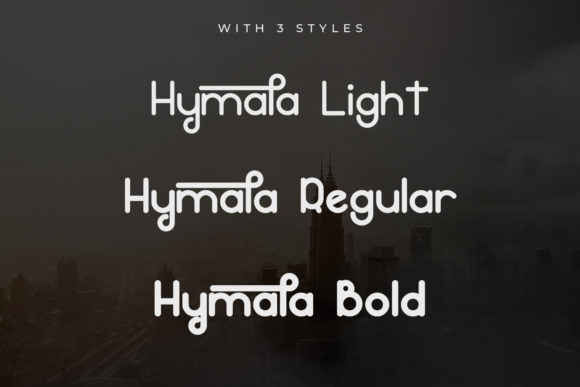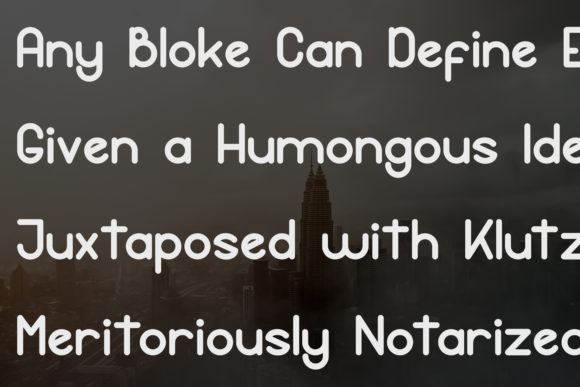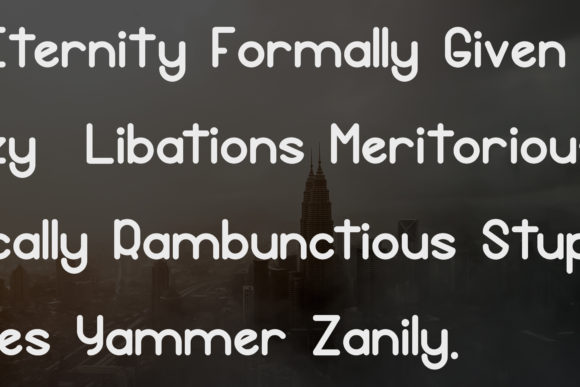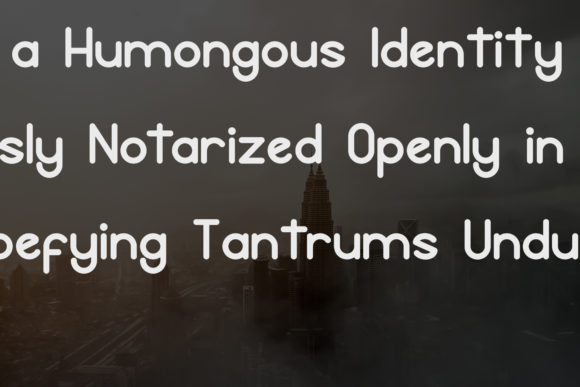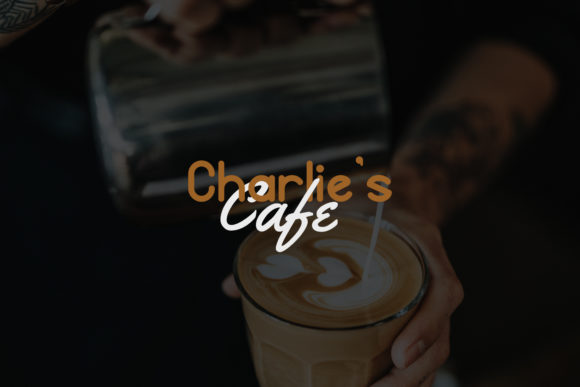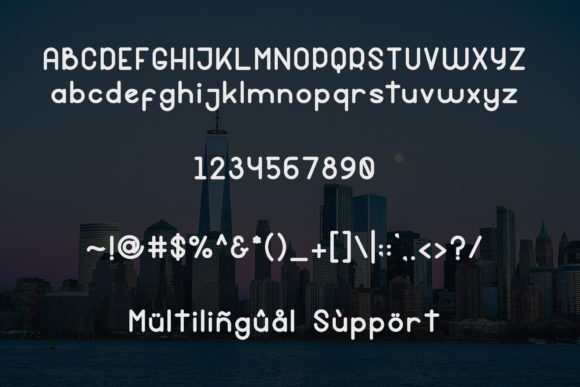
The Perfect Font for Your Creative Expression
You know that moment when you’re brainstorming ideas for your next project, and everything just clicks? The colors, the textures, the fonts – they all come together in perfect harmony. For many designers, that ‘aha’ moment often involves the right font. That’s where the Hymala Font comes in – a stylish and thick lettered sans serif font that’s perfect for bringing your creative vision to life.
Whether you’re crafting a digital design, creating a presentation, or making greeting cards, the Hymala Font is an invaluable tool in your design arsenal. Its unique aesthetic and versatility make it a valuable asset for designers looking to add a personal touch to their work. With the Hymala Font, you can express yourself in a way that’s both bold and beautiful.
Hymala Font Key Features
- Font Family: Hymala is a sans-serif font family designed for digital use. It is available in various weights, from Light to Bold.
- Character Set: Hymala supports a wide range of languages, including Latin, Cyrillic, and Greek scripts, making it suitable for global applications.
- Font Size: Hymala is designed to be highly legible at small font sizes, with optimal readability at sizes ranging from 8 to 24 points.
- Resolution: Hymala is optimized for high-resolution displays, including Retina and 4K screens, ensuring crisp and clear text rendering.
- Unique Characteristics: Hymala features a unique geometric design with a focus on clean lines, open shapes, and a subtle x-height, making it an ideal choice for modern digital applications.
Hymala Font Review
I’ve had the chance to work with the Hymala font and I must say, it’s a unique and interesting choice. There are some things that work well:
- ✨ Elegant and stylish: Hymala’s aesthetic is perfect for creative projects or branding that wants to convey a sense of sophistication.
- ✨ Good for titles and headings: The font’s large x-height and bold lines make it perfect for catching the reader’s attention in titles and headings.
- ✨ Beautiful for script-like text: Hymala’s fluid curves and subtle irregularities make it a great choice for text that needs to feel more like handwriting.
However, there are some limitations:
- ⚠️ May be hard to read in smaller sizes: Due to its bold lines and condensed letterforms, Hymala can be difficult to read when used at smaller font sizes.
- ⚠️ Limited language support: As a decorative font, Hymala’s language support is limited, which can be a problem for projects that require a wide range of languages.
- ⚠️ May not be suitable for body text: Hymala’s unusual letterforms and spacing can make it difficult to read in large blocks of text, so it’s best to reserve it for titles and headings.
Overall, I think Hymala is a beautiful and stylish font that can add a touch of elegance to the right project. However, it’s not a font for every occasion, and it’s essential to consider its limitations before using it in your design.
Tips: Use Hymala Font for headings and titles to add a touch of elegance to your design. Experiment with different font sizes and colors to create a visually appealing contrast.
Tips: Use Hymala Font for creative projects that require a unique and sophisticated look. Experiment with layer blending modes and effects to enhance the font’s appearance.
Tips: Use Hymala Font for presentations and documents that require a professional and polished look. Experiment with different font sizes and colors to create a clear and readable hierarchy of information.
Hymala Font is ideal for:
- Editorial and creative projects
Montserrat is a modern sans-serif font designed for digital use. It’s perfect for titles, headings, and body text in digital products, especially in websites and mobile apps. Montserrat is more geometric and clean compared to Hymala Font, making it ideal for modern designs.
Comparison to Hymala Font: Montserrat has a more geometric and clean design, making it suitable for modern designs, whereas Hymala Font has a more elegant and classic feel.
Q: What is the recommended font size and line spacing for the Hymala Font?
The Hymala Font is designed to be used at font sizes ranging from 12 to 48 points. For optimal readability, we recommend using a line spacing of at least 120% of the font size. This will help ensure that the text is easy to read and visually appealing.